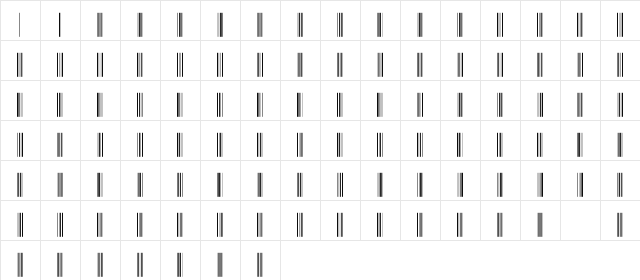
IntP48DmTt Normal
Design Context for IntP48DmTt Typeface
IntP48DmTt is a composed and adaptable typeface that performs quietly and consistently across a wide range of design contexts.